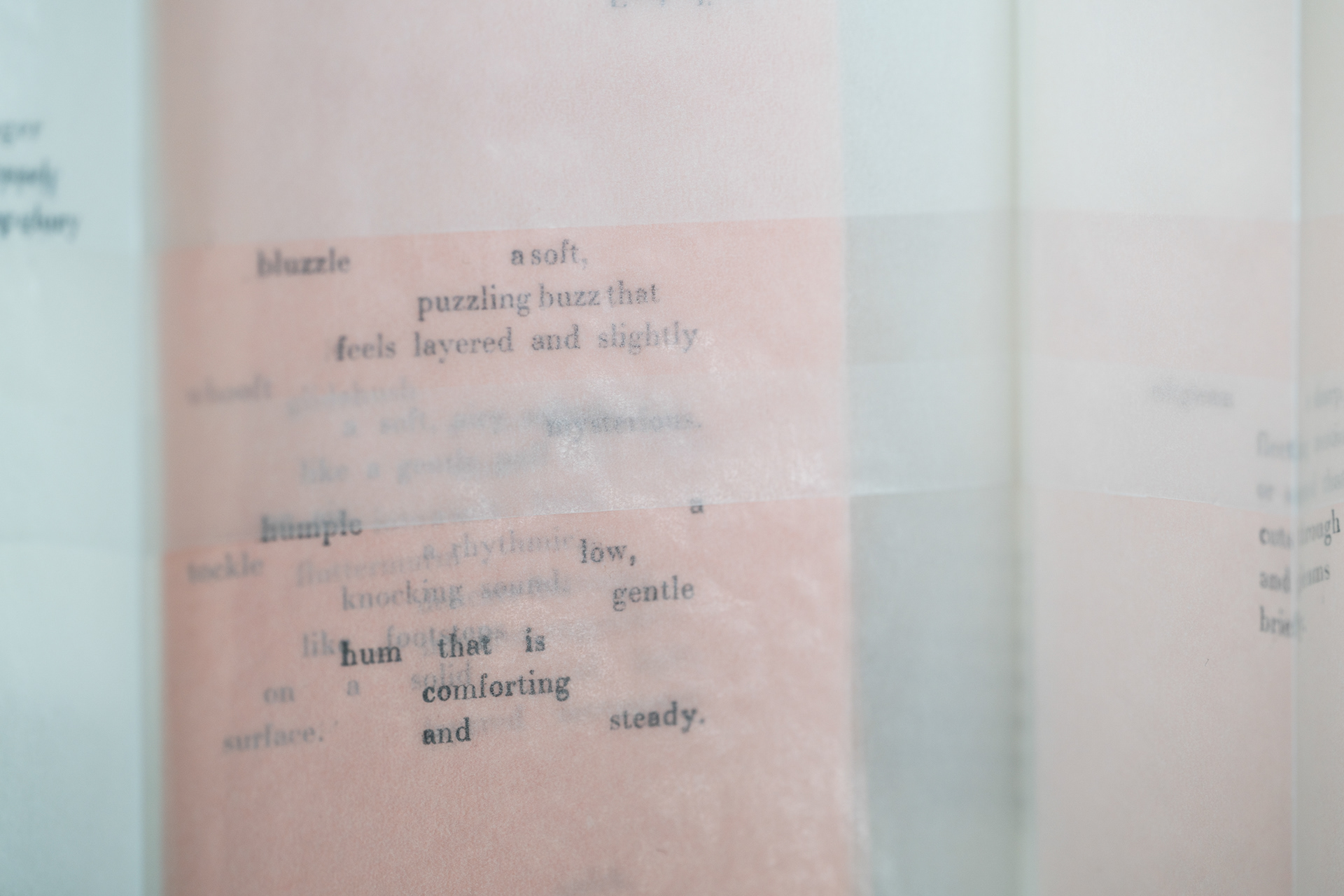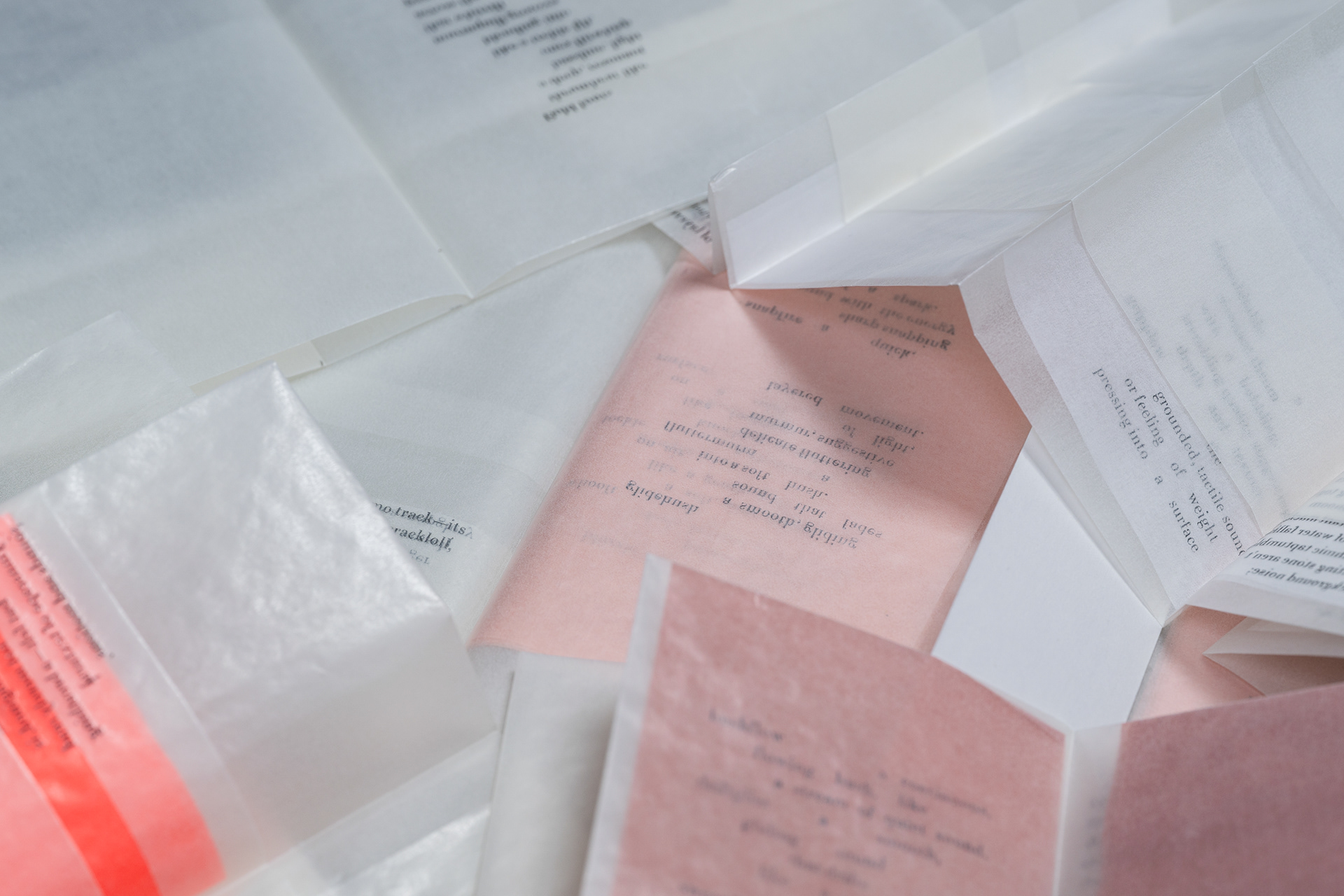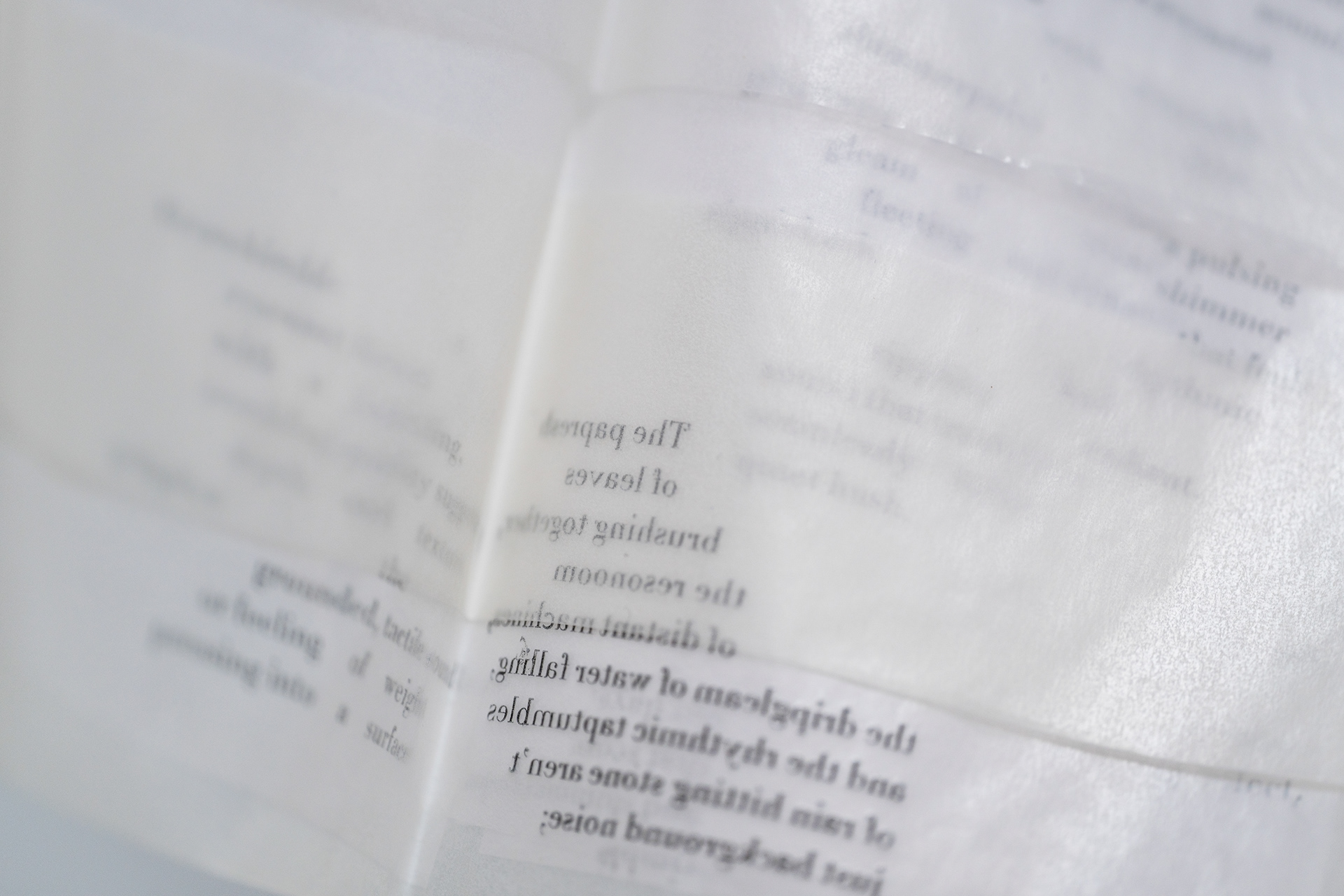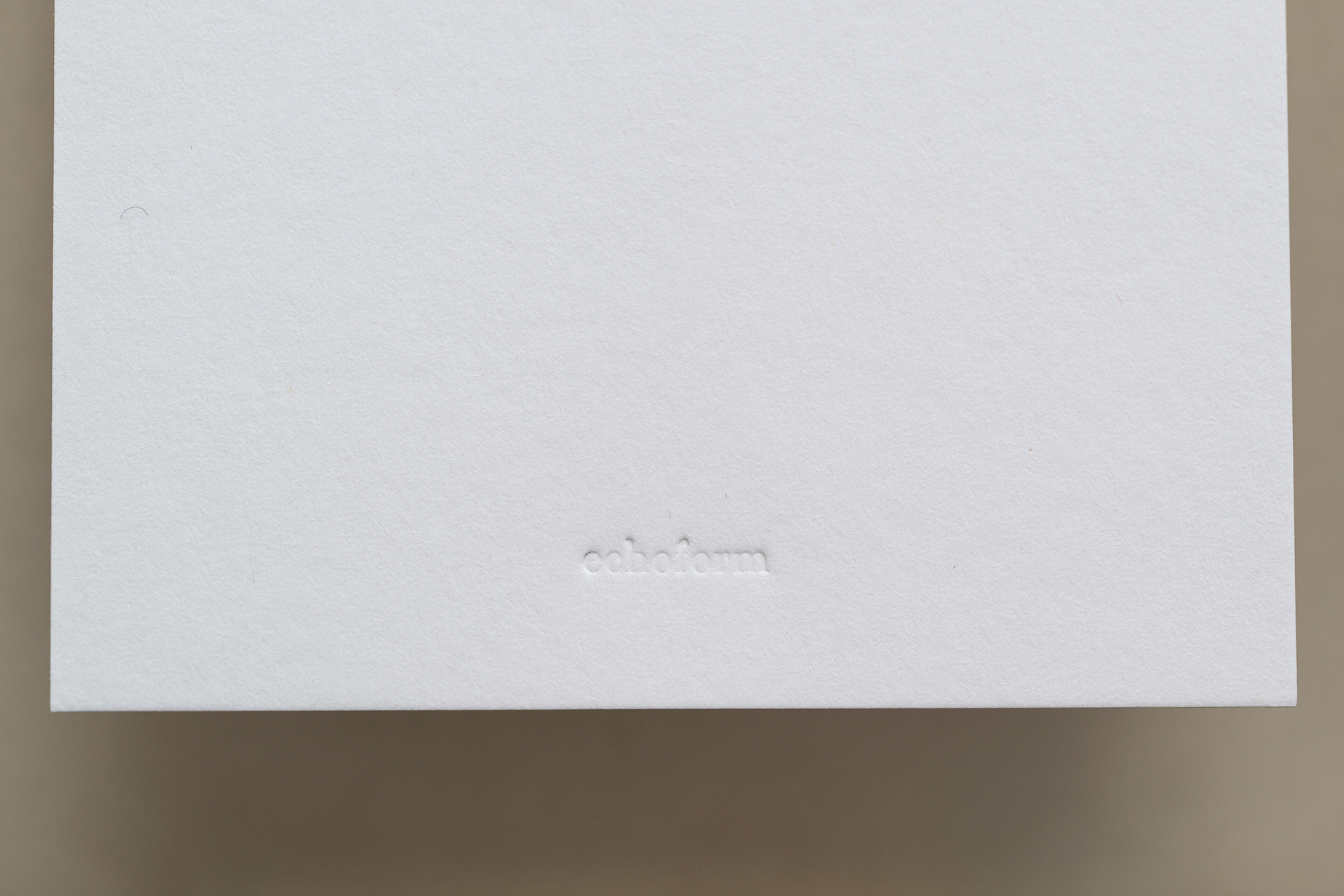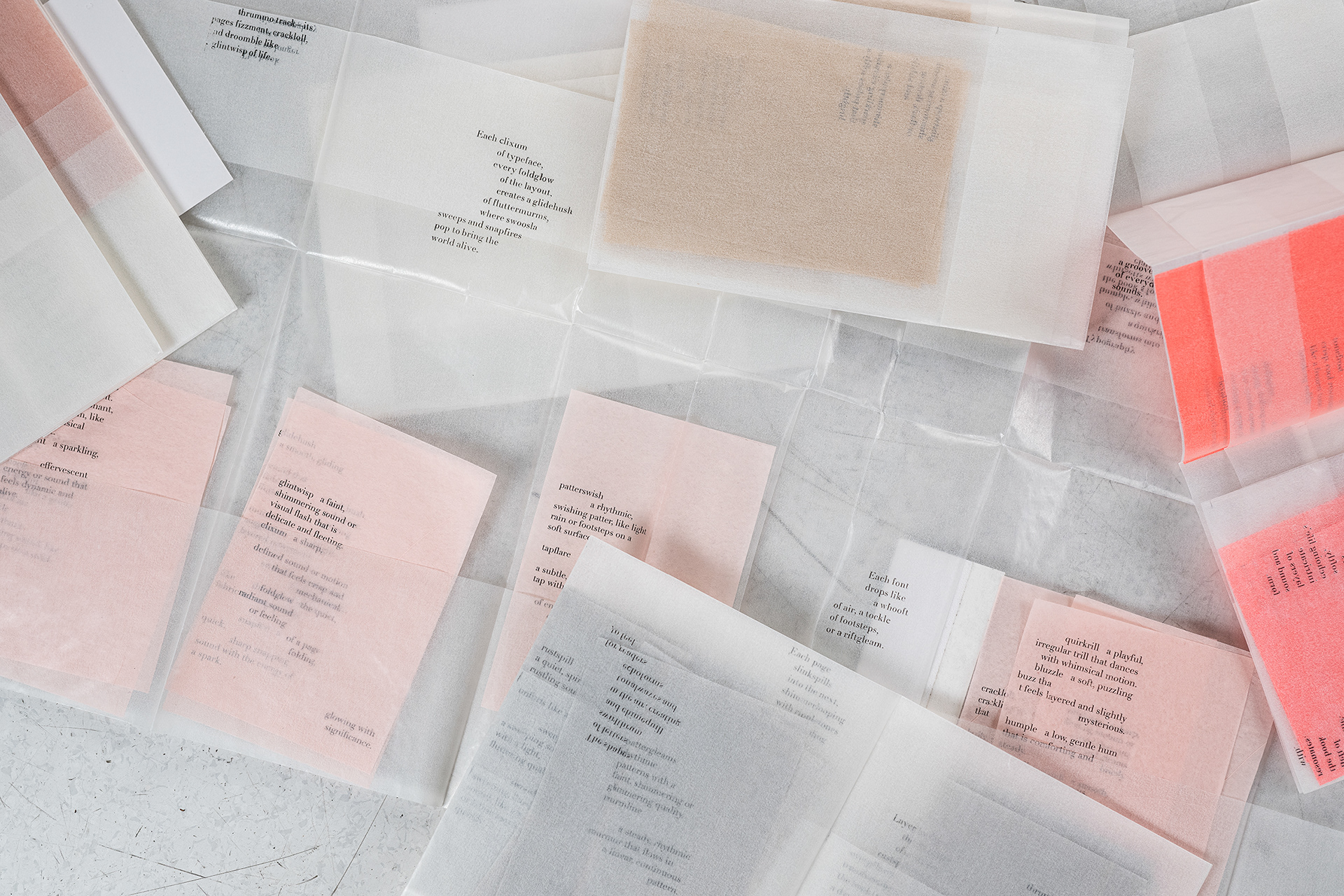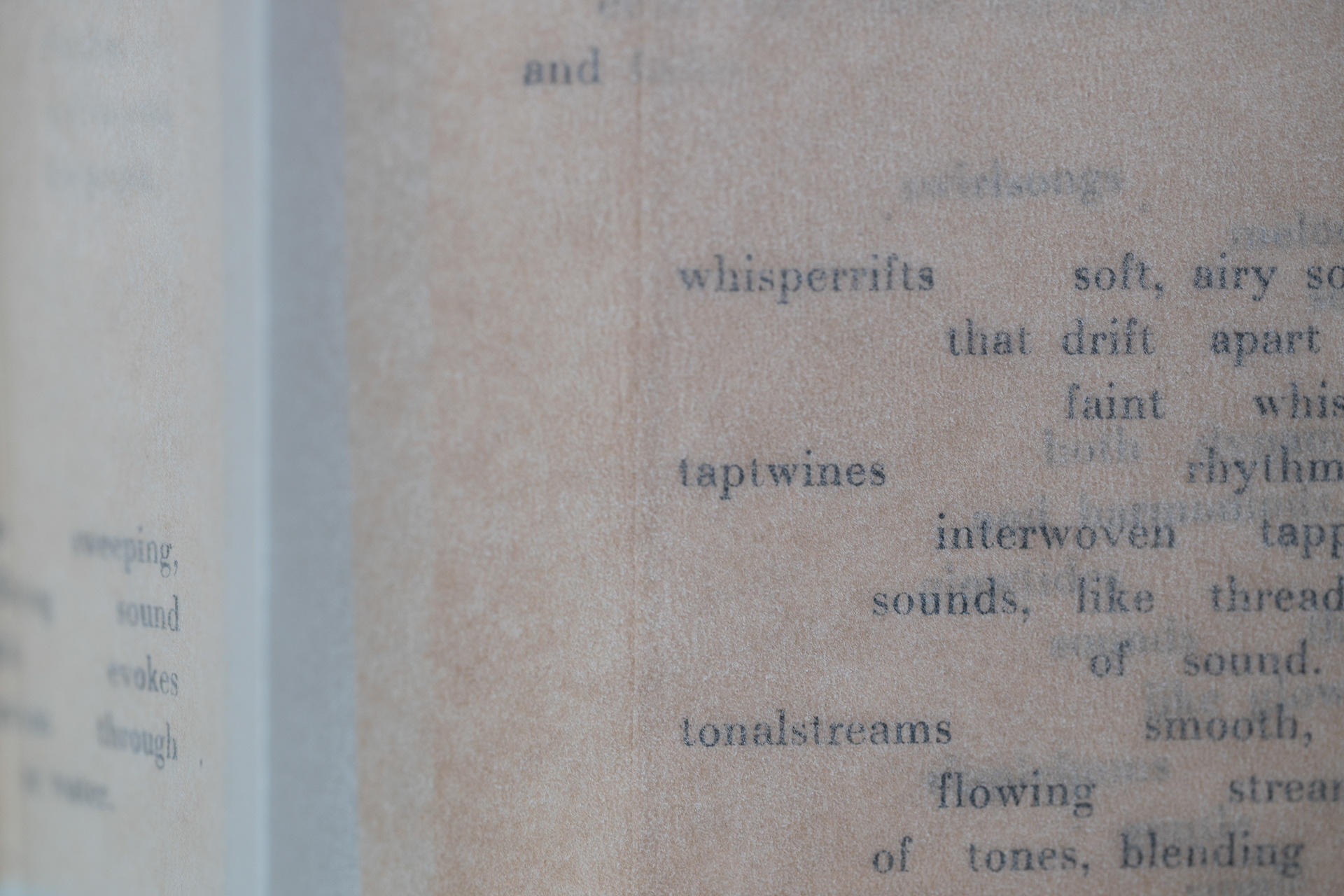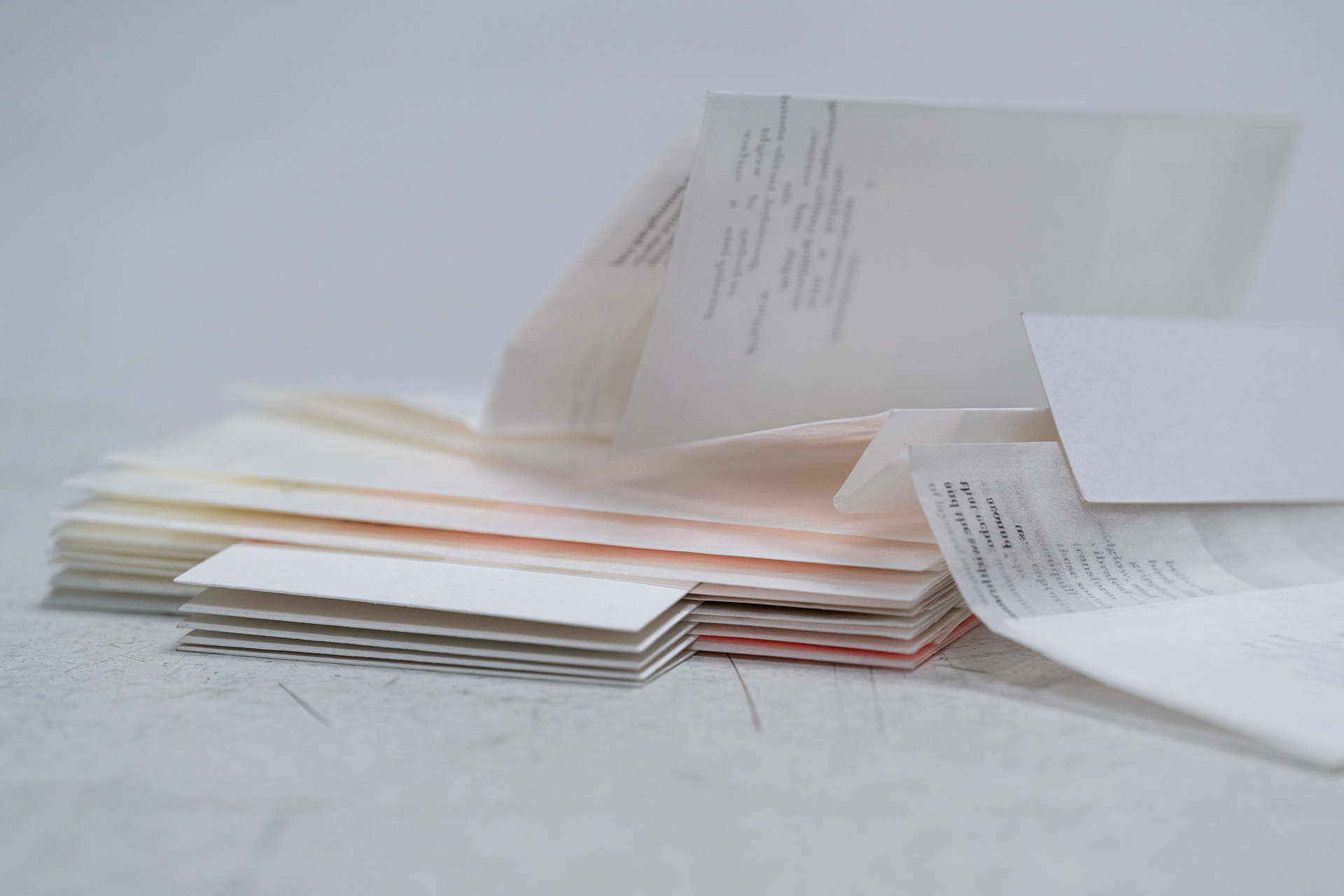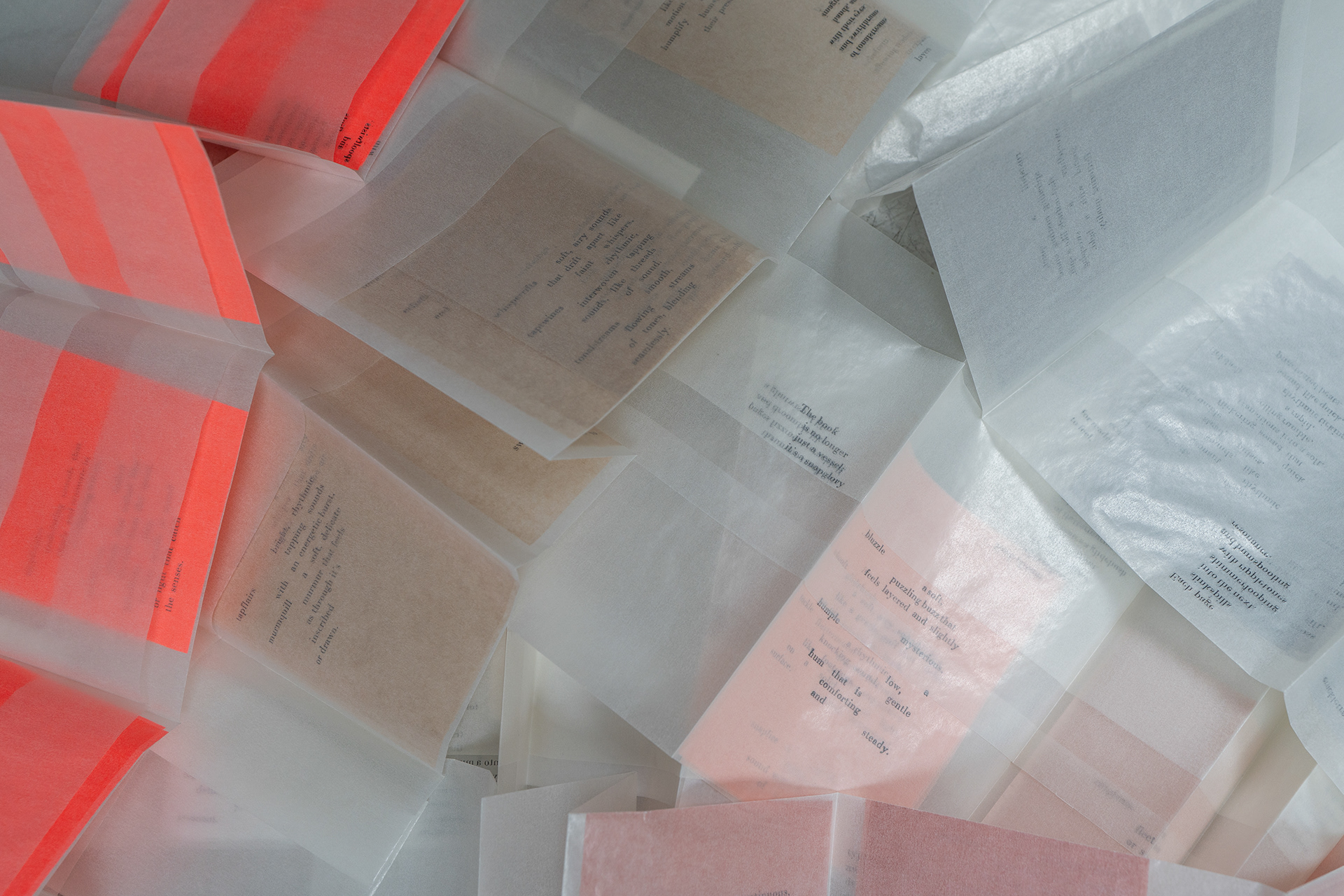
echoform reimagines the book as an instrument, where typography and publishing become tools for capturing and translating sound. The text created with the support of GPT technology, explores the book as a multidimensional object, merging form, text, and sound through abstract onomatopoeic words. Printed entirely with letterpress in Didot, the typographic composition generates a visual rhythm, while overlapping layouts create layered noise and abstract soundscapes. Parchment paper, chosen for its tactile and acoustic qualities, enhances the project’s sonic dimension. Large 50×70 cm sheets fold into 12.5×18 cm, each employing a unique folding method to produce distinct rhythms. Inserts in various colors introduce additional narrative layers, concealing smaller formats that reveal explanations of the abstract words. All elements are housed in a custom-designed box, whose structure and details echo the typographic rhythms within. Encouraging interaction, the publication invites audiences to read, unfold, and play it like an instrument—experimenting with its textures, sequences, and sonic possibilities to co-create an evolving, rhythmic experience.